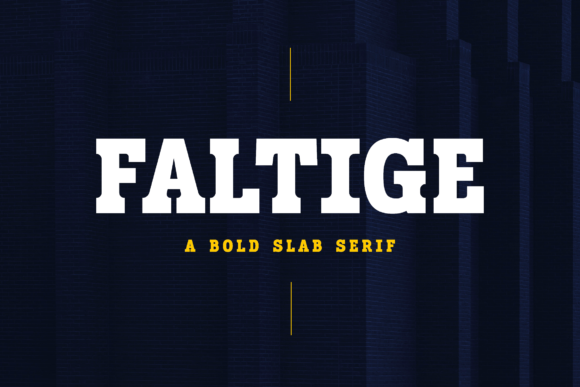
Introducing Faltige Font - The Ultimate Stylish Companion for Your Creative Endeavors
Immerse yourself in the realm of typography and unearth the exquisite Faltige Font, a striking slab serif font that will transform your creative projects into masterpieces. This meticulously crafted font, brought to life by the ingenious minds at Typia Nesia, exudes an aura of boldness and sophistication that will captivate your audience.
With its distinctive thick and thin strokes, Faltige Font possesses an inherent charm that lends itself effortlessly to a myriad of design applications. Whether you're weaving captivating web designs, crafting elegant business cards, or seeking to add a touch of uniqueness to any project, Faltige Font stands ready as your steadfast ally. Its versatility knows no bounds, allowing you to effortlessly manifest your creative vision.
Step into a world where your words dance with elegance, where every character carries the weight of your message with grace and poise. Faltige Font's inherent beauty transcends the ordinary, inspiring you to craft designs that resonate with your audience, leaving an indelible mark on their minds. Unleash your creativity and let Faltige Font guide you towards typographic excellence.